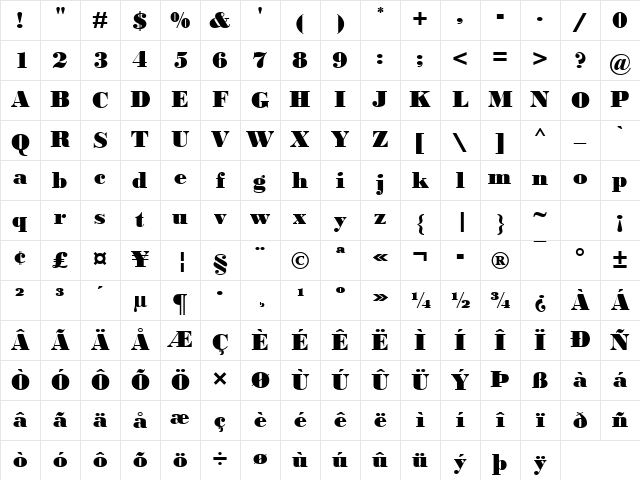
Bodoni MT Black Regular
Foundry: Agfa Monotype Corporation
Designer: Monotype Type Drawing Office
Design Context for Bodoni MT Black
Bodoni MT Black is a composed and adaptable typeface that performs quietly and consistently across a wide range of design contexts.